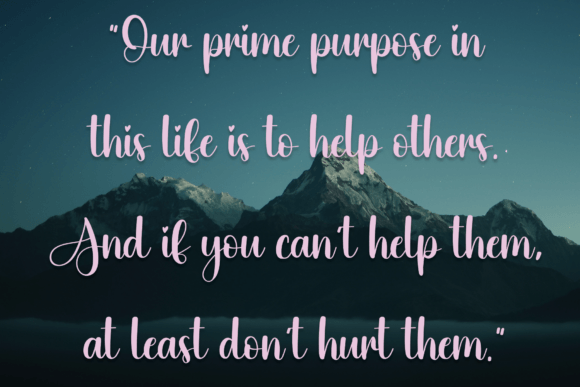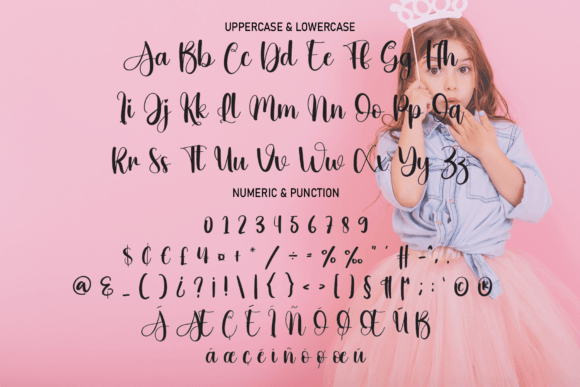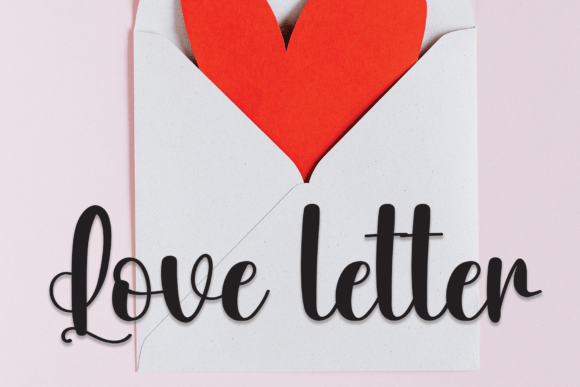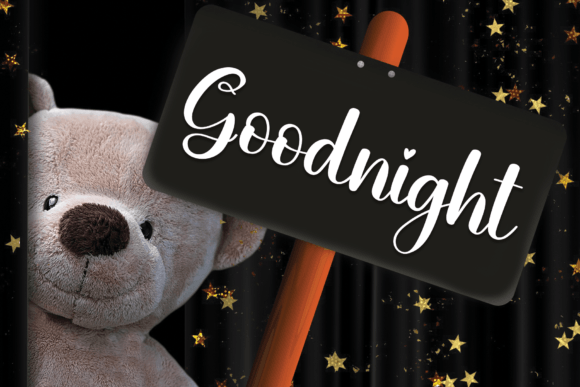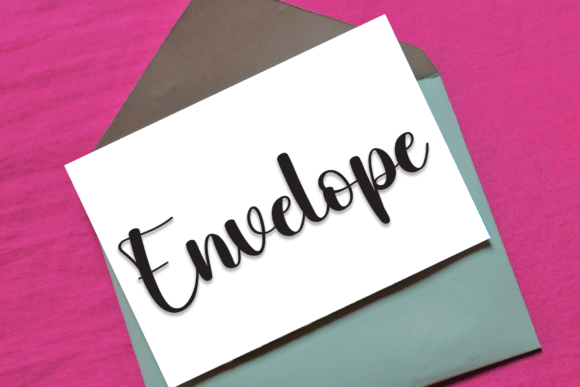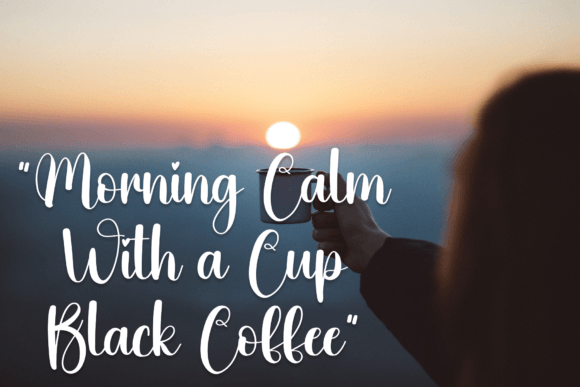
Unlock the Secrets of Beautiful Typography
Have you ever been in a moment of pure creative bliss, where the perfect font pops into your mind and instantly elevates your project? For designers, this moment is a game-changer. It’s the spark that sets off a chain reaction of inspiration, and Beautiful Barbies Font is one such spark.
Beautiful Barbies Font is a stunning handwritten script font that effortlessly blends classic calligraphy with modern flair. Its unique charm is sure to captivate your audience and elevate your design projects to new heights. With its versatility and timeless appeal, Beautiful Barbies Font is an invaluable addition to any designer’s toolkit.
Whether you’re working on a branding project, creating a wedding invitation, or designing a social media campaign, Beautiful Barbies Font is the perfect choice to bring your vision to life. Get ready to fall in love with its elegant curves and stylish flair!
- Font Family: Beautiful Barbies, a unique and playful script font
- Unique Characteristics: Features swashes, flourishes, and connecting strokes for a hand-drawn feel, perfect for creative projects, invitations, and branding
Designer Review: Beautiful Barbies Font
As a designer, I was excited to dive into the Beautiful Barbies Font. At first glance, I was struck by its whimsical and playful feel ✨. The font’s cursive script and bubbly texture evoke a sense of nostalgia and femininity, making it perfect for projects that require a touch of elegance and charm. The font’s high level of customization also allows for a wide range of applications, from wedding invitations to children’s books.
- Unique and playful design ✨
- High level of customization
- Perfect for projects that require a touch of elegance and charm
However, as I dug deeper, I noticed a few limitations ⚠️. The font’s bold and italic styles seem to be the most well-developed, while the regular style appears a bit inconsistent. Additionally, the font’s texture can sometimes be overwhelming, making it difficult to read in certain contexts.
- Inconsistent regular style ⚠️
- Texture can be overwhelming in certain contexts
Overall, I would recommend the Beautiful Barbies Font for projects that require a playful and feminine touch. However, it’s essential to be aware of its limitations and use it judiciously to avoid over-texturization.
The Beautiful Barbies Font is perfect for:
- Children’s birthday invitations and party decorations
- Girls’ fashion and lifestyle branding
- Wedding invitations and decor
- Any design project that requires a playful, feminine touch